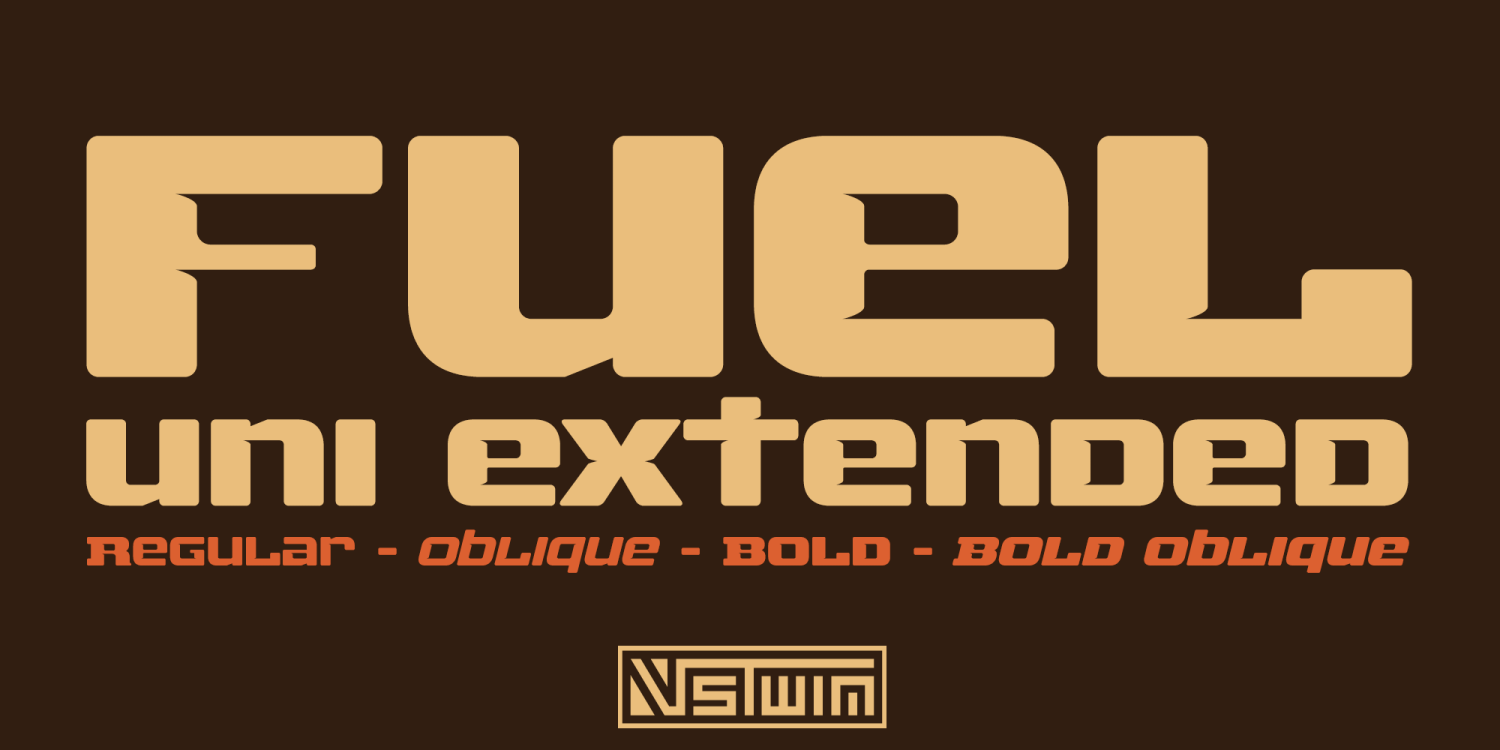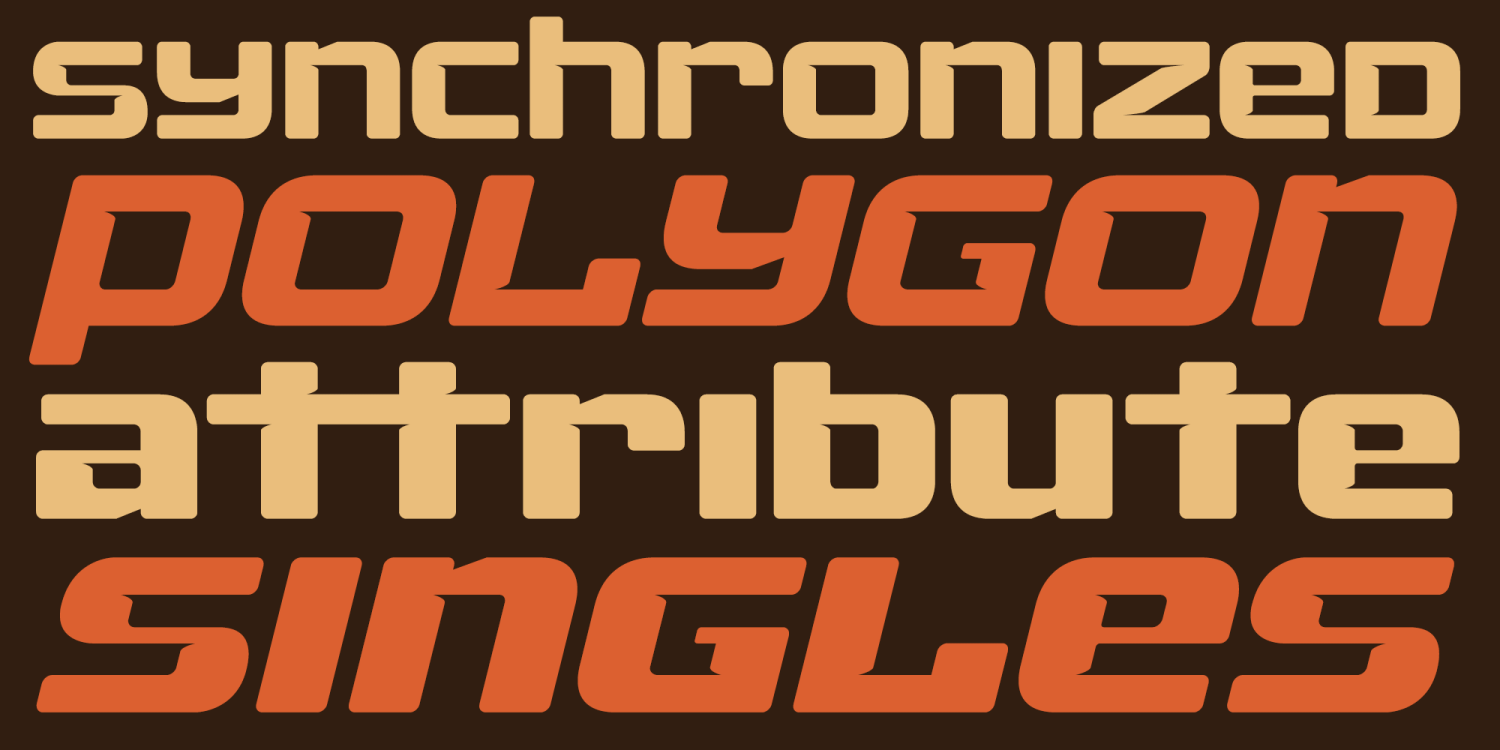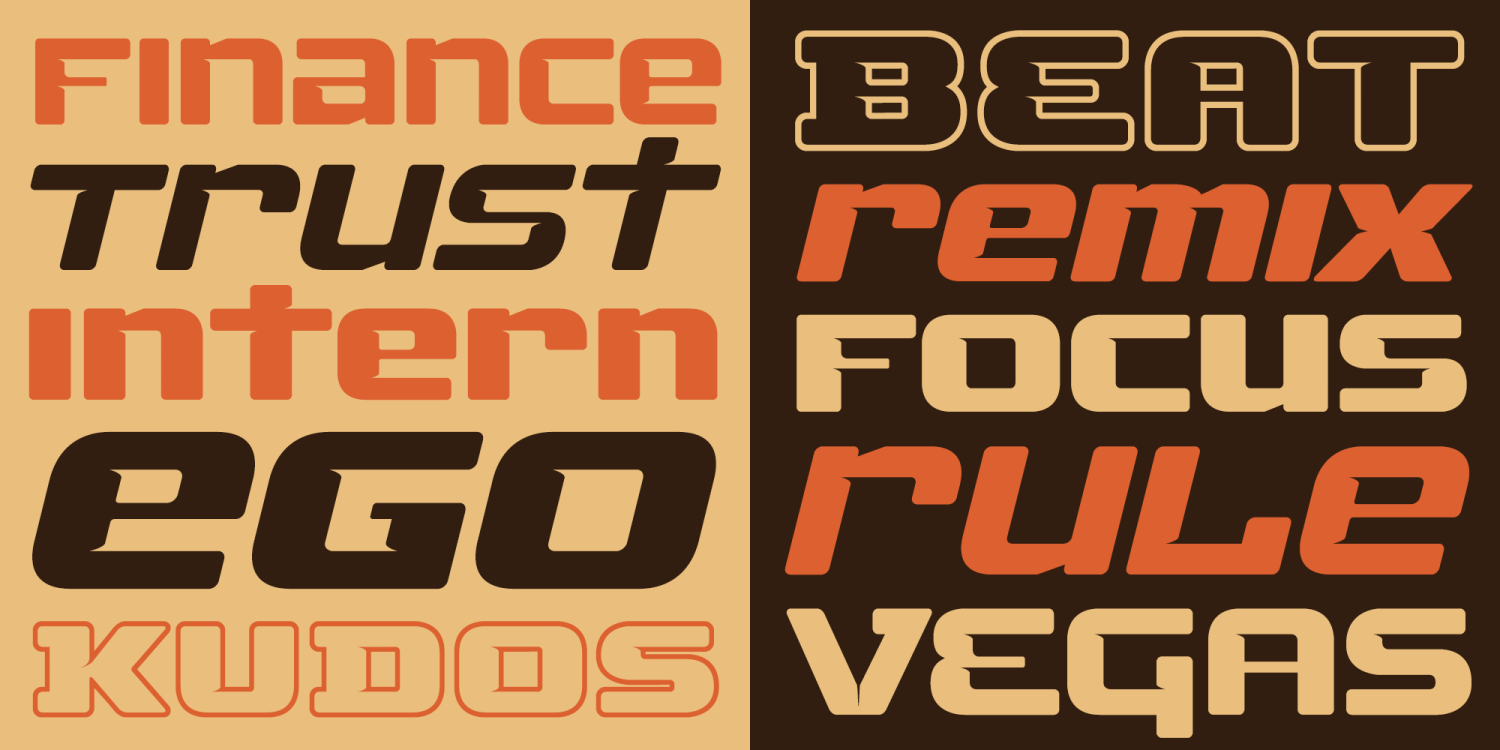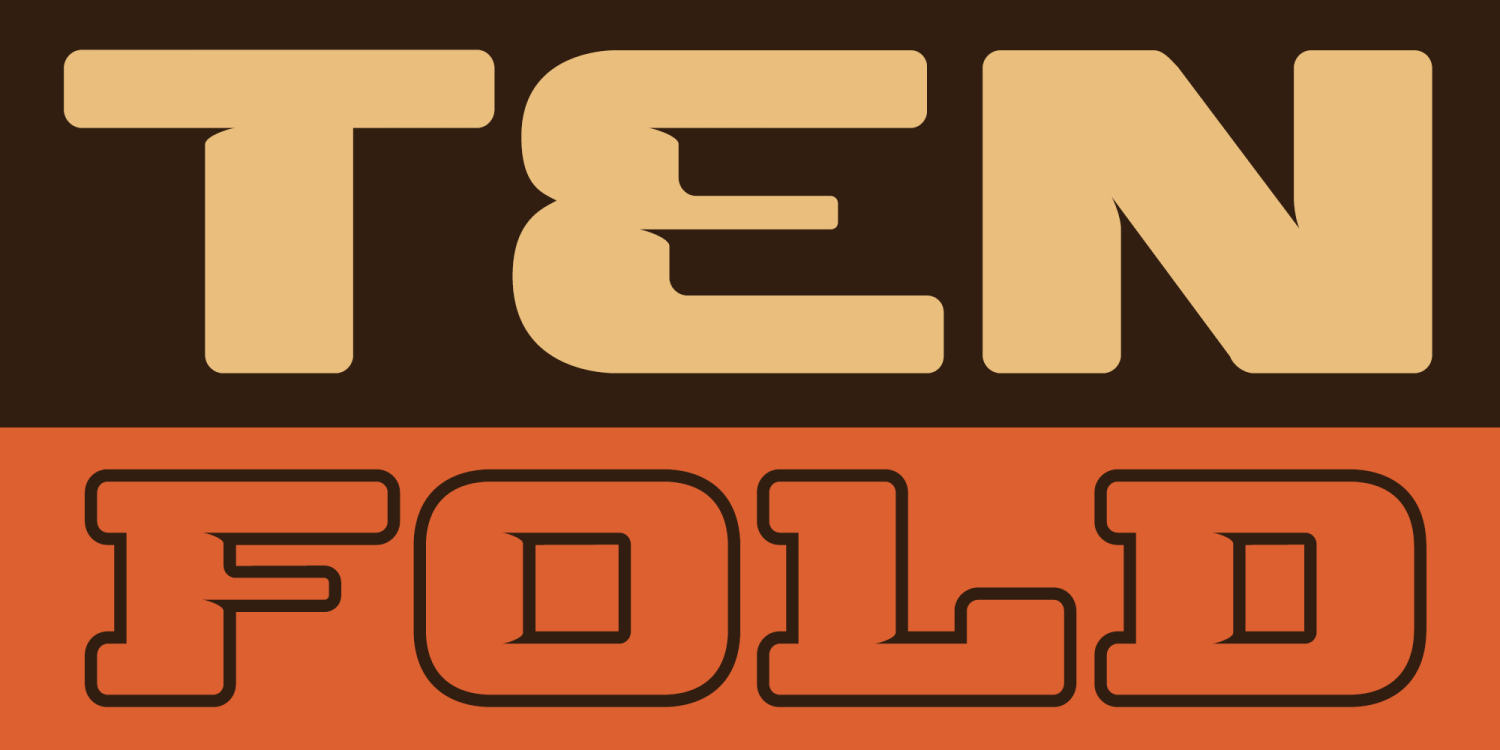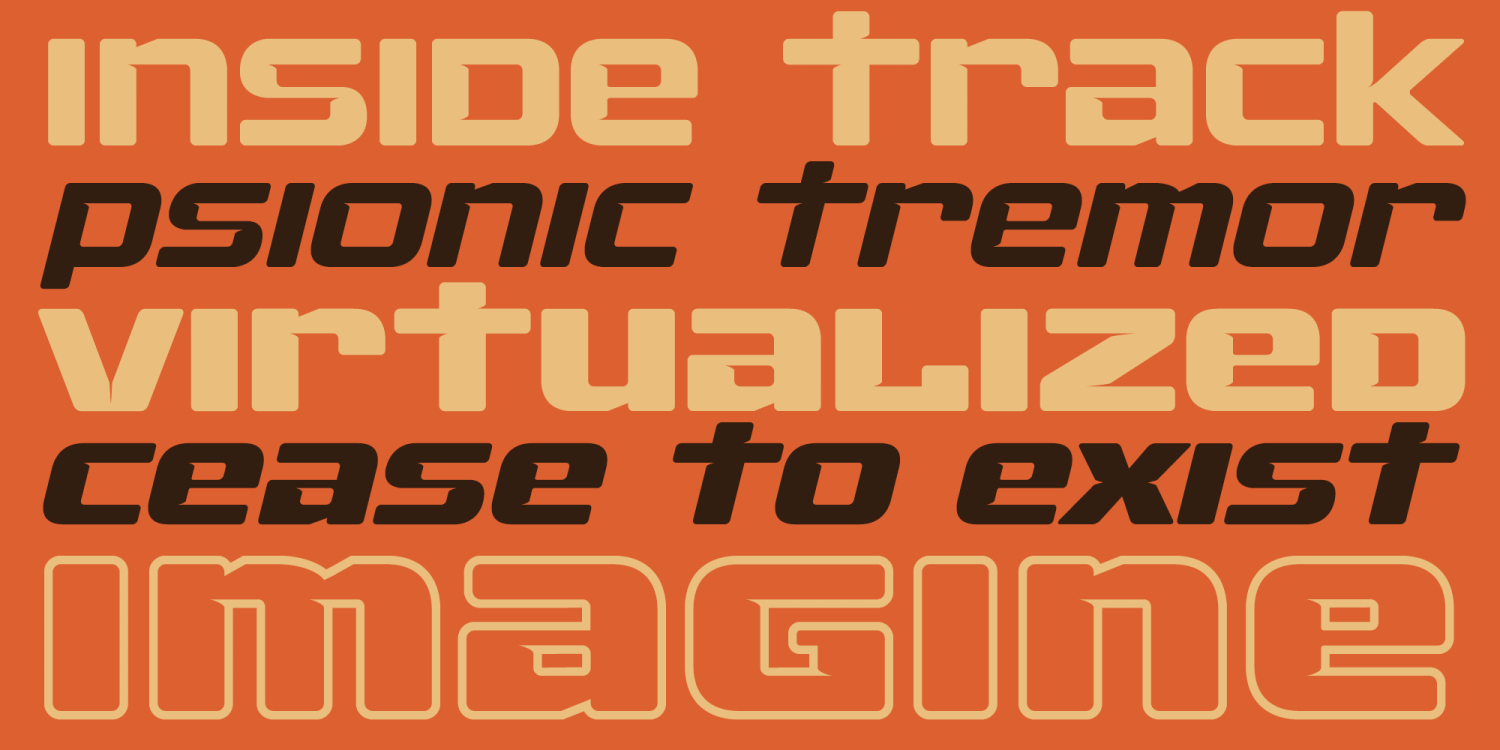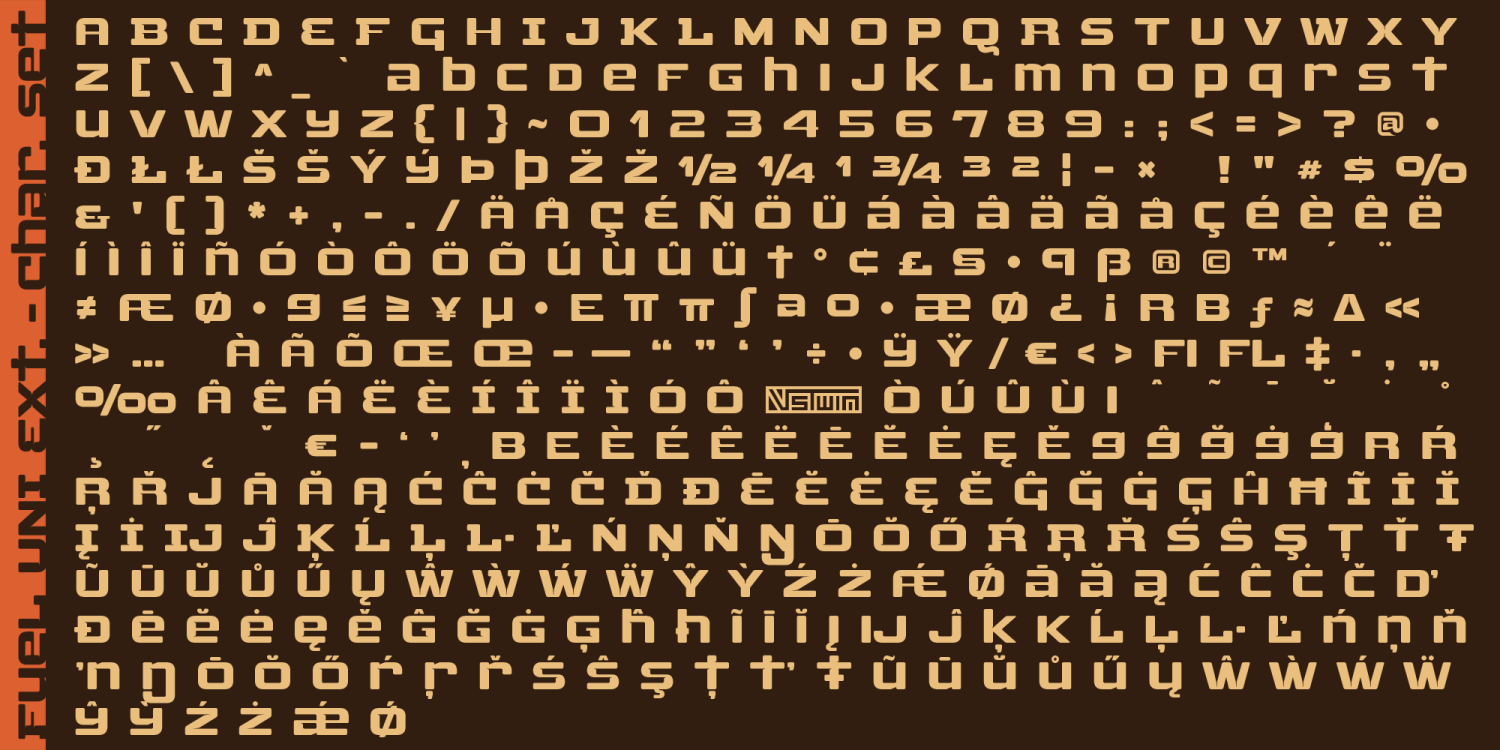
Fuel Uni Extended
Font Family by VersusTwin
Fuel Uni Extended is a wide unicase techno sans designed for stronger impact and a more commanding horizontal presence. It combines the streamlined futuristic structure of the Fuel family with a unified unicase approach, creating a distinctive visual rhythm that feels modern, sleek, and highly graphic. The broader proportions give headlines, logos, and branding systems a more expansive silhouette, while the supporting oblique, bold, and outline styles add flexibility for layered and high-impact display typography. Fuel Uni Extended is well suited for branding, gaming graphics, posters, packaging, editorial titling, and other contemporary design work that benefits from a wide technical voice with a cleaner, more stylized edge.